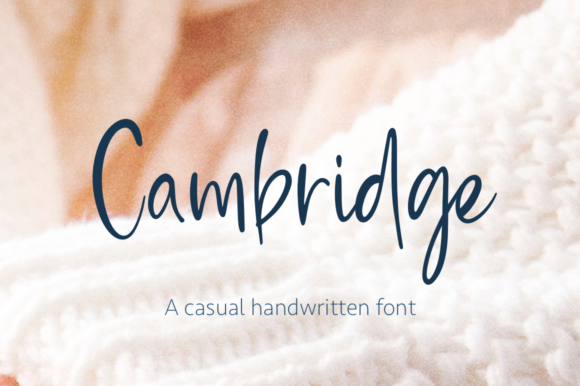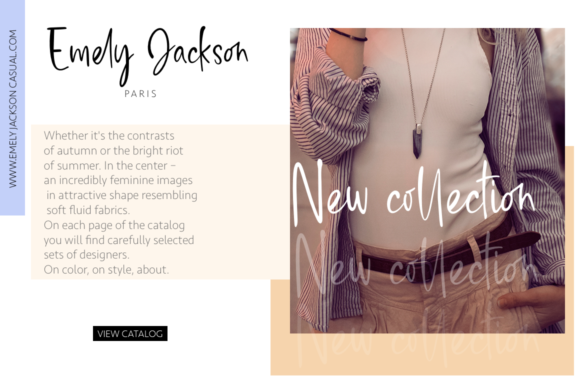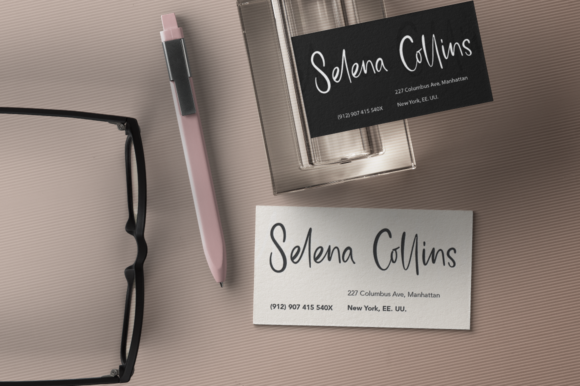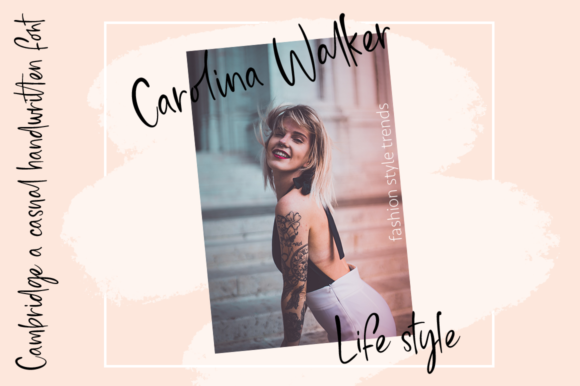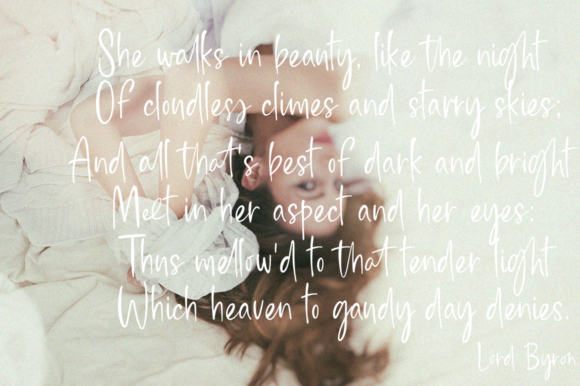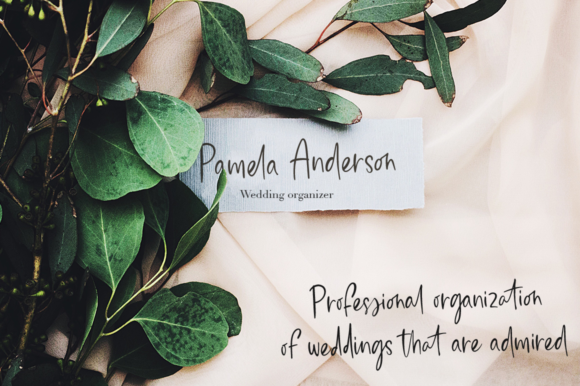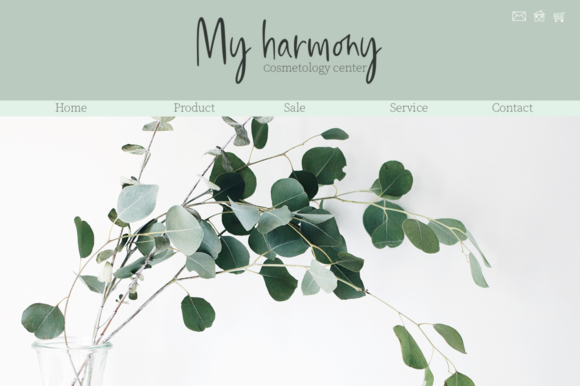
Cambridge Script Font
About Cambridge Script Font
Introducing The Cambridge, a fresh and meticulously crafted calligraphy font that seamlessly blends elegance with exceptional readability. This typeface is a testament to the artistry of handmade design, offering a sophisticated style that lends itself seamlessly to a variety of creative endeavors.
The Cambridge is not merely a font; it is a design asset that breathes life into your projects. Its elegant strokes and graceful curves make it a perfect choice for a myriad of applications. Whether you are developing a brand identity, enhancing the aesthetics of your projects, designing wedding invitations, curating a blog, or managing a small business, The Cambridge adds a touch of timeless charm.
What sets The Cambridge apart is its versatility. The font’s clean lines and exquisite details make it a standout option for creating refined and visually pleasing branding materials. Its legibility ensures that your message is conveyed with clarity, making it an excellent choice for book covers, where readability is paramount.
For wedding invitations, The Cambridge brings a sense of sophistication and romance, setting the tone for a memorable celebration. Blogs come to life with the font’s stylish flair, enhancing the overall visual appeal and making your content more engaging for readers.
Small businesses looking to establish a distinctive visual identity will find The Cambridge to be a valuable asset. Whether applied to signage, marketing materials, or product packaging, this font injects a sense of elegance that resonates with customers.
In essence, The Cambridge is more than a font; it is a versatile tool that elevates the visual language of your projects. Its handmade calligraphy evokes a sense of artistry and craftsmanship, making it an ideal choice for those who seek to infuse their work with sophistication and style. Embrace the timeless elegance of The Cambridge and watch as it transforms your creative endeavors into captivating expressions of beauty and refinement.